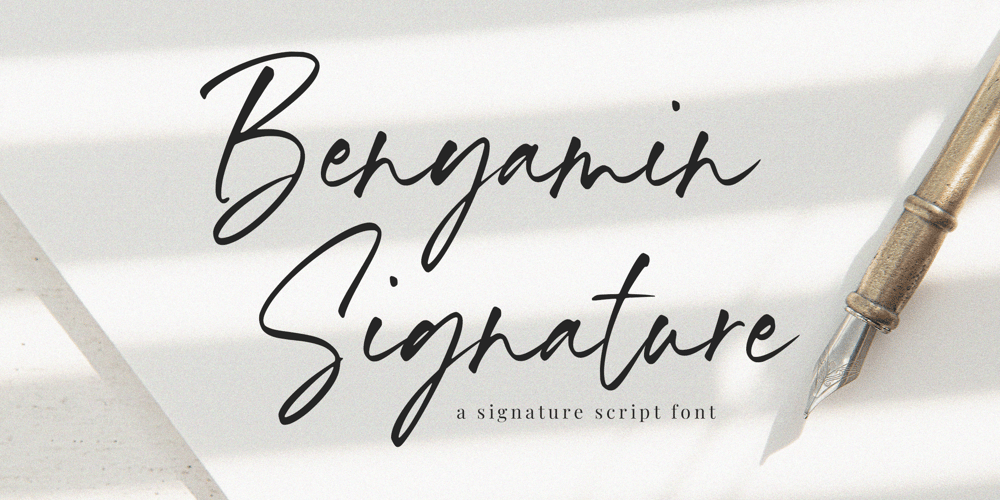
Benyamin Signature Font Family was designed by Wara Sigit Tri Pamungkas and published by Timurtype. Benyamin Signature contains 1 styles and family package options. Introducing by Timur typeProudly Present, Benyamin Signature A Handwritten FontBenyamin Signature is perfect for product packaging, branding project, megazine, social media, wedding, or just used to express words above the background.This Benyamin Signature font includes:-Full Set of standard alphabet and punctuation & symbol-Extra set Alternate ending lowercase-multilingual support.Embelish your designs with our original fonts.Enjoy the font,Thank you!